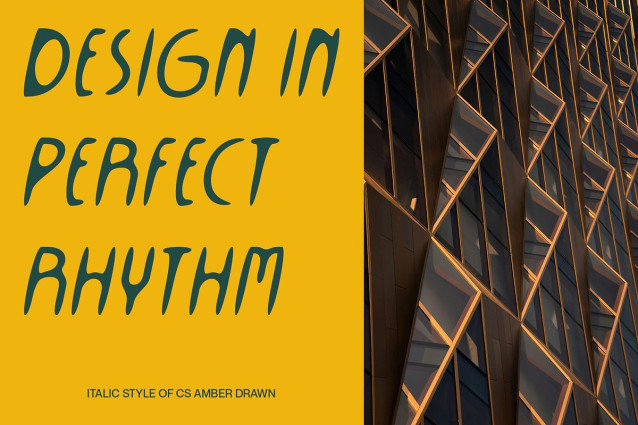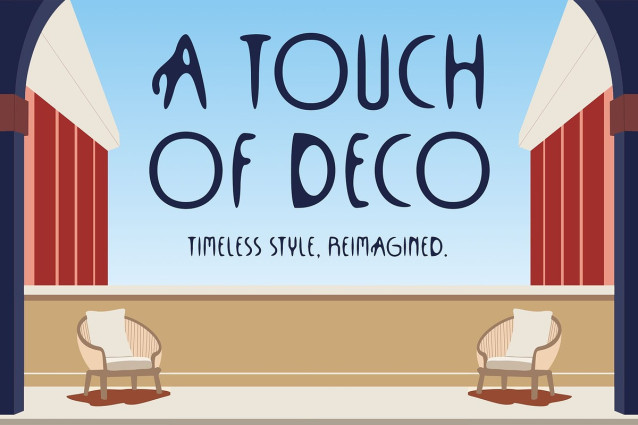
CS Amber Drawn Font
CS Amber Drawn Font – This is a modern sans serif font that beautifully merges Art Deco elegance with clean, geometric design. Its symmetrical shapes and refined structure echo the timeless glamour of the Art Deco era, while the minimalist forms keep it perfectly in line with contemporary trends.
Drawn Effect for Artistic Texture What sets this art deco font apart is its hand-drawn effect, which adds a unique, artistic dimension to the otherwise precise geometry. This handcrafted quality softens the rigid modern shapes, giving the font a personal and expressive character ideal for standout visual compositions.
A Balance of Vintage and Modern By fusing vintage charm with modern aesthetics, this modern sans serif font offers a fresh take on nostalgic design. The result is a font that feels both classic and current—ideal for creative projects that require a touch of sophistication without losing originality.
Perfect for Distinctive Visual Projects Whether you’re designing for branding, posters, editorial layouts, or digital graphics, this art deco font delivers a bold yet elegant impression. Its versatility and character-rich appearance make it a powerful choice for designers looking to create something visually compelling and unique.